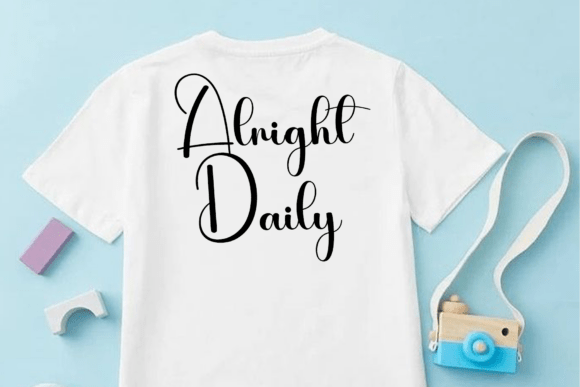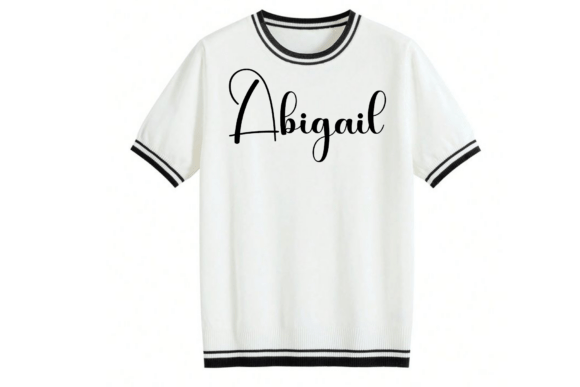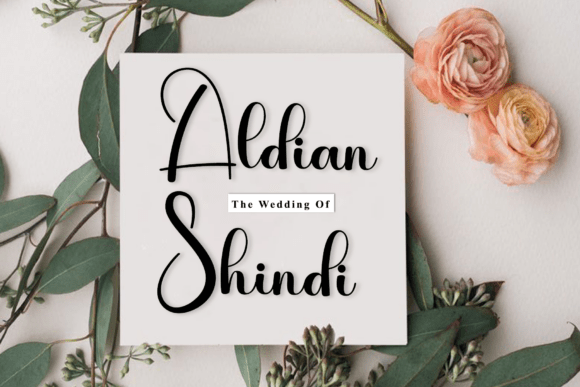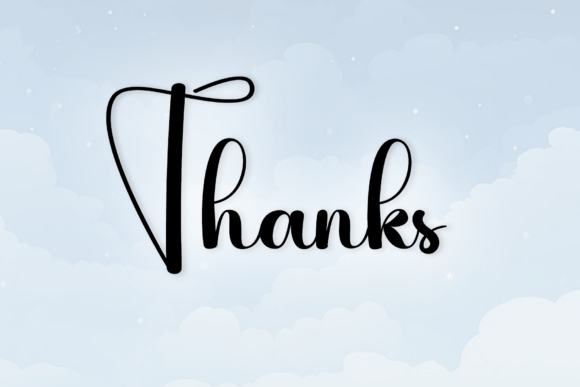
Discovering the Rhythm of Citylands Font
As you sit at your desk, surrounded by scribbled notes and scattered design materials, you stumble upon that perfect combination of letters and lines. The words flow effortlessly, and the rhythm of your creative project comes alive. For many designers, this moment is the pinnacle of inspiration. But, what if you could harness that same energy and apply it to your branding and marketing materials? Enter the Citylands Font, a sophisticated and rhythmic script font that embodies the essence of artisanal artistry.
With its sweeping, looping ascenders, the Citylands Font is a design resource that stands out from the crowd. Whether you’re creating packaging for a boutique food product or crafting a headline for an upscale lifestyle magazine, this font is sure to add a touch of high-quality sophistication to your work. And the best part? You can use it with a transparent background, giving your designs a clean and modern look.
Key Features of Citylands Font
- Unique, modern design ideal for urban-themed creative projects
Honest Review: Citylands Font
I recently had the chance to experiment with the Citylands Font, and I must say it’s a fantastic addition to any designer’s toolkit. This free download has proven to be a high-quality design resource, perfect for creative projects that require a touch of elegance and sophistication.
One of the standout features of the Citylands Font is its versatility. It works beautifully on both light and dark backgrounds, making it an excellent choice for designers who need a font that can adapt to different visual contexts.
- High-quality design with precise letterforms and spacing
- Wide range of uses, from body text to headings
- Compatible with both transparent and solid backgrounds
What doesn’t work so well: ⚠️
- Limited character set, which may not be ideal for complex typography
- No bold or italic variants, which can make it difficult to create visual hierarchies
Overall, I’m impressed with the Citylands Font. While it may have some limitations, its strengths make it a valuable addition to any designer’s library. With its transparent background option, it’s perfect for designers who want to add a touch of modernity to their creative projects.
Using Citylands Font in Creative Projects
Citylands Font is perfect for creative projects that require a unique and eye-catching design. It can be used in a variety of applications, including digital design, print media, and even web design. The font’s transparent background makes it easy to use in combination with other design elements.
Tips for Getting the Most Out of Citylands Font
Here are a few tips for getting the most out of Citylands Font:
- Use the font in combination with other design elements, such as images and graphics.
- Take advantage of the font’s transparent background to create a seamless design.
Citylands Font is commonly used in a variety of applications, including:
- Business cards and brochures.
- Posters and flyers.
- Websites and web applications.